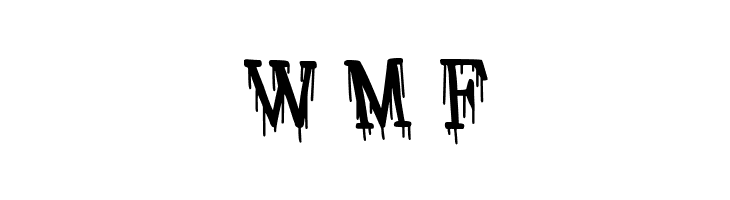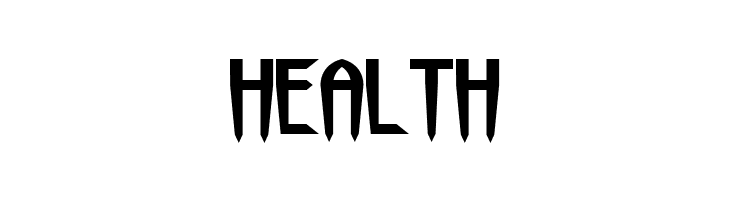
Hand-drawn cat-themed decorative font with playful character integration.
A bold, dripping display font ideal for horror or Halloween themes.
Distressed, bold display font with jagged, horror-inspired forms.
Dripping, horror-themed decorative font with bold, tall letters.
Bold, distressed display font with a grungy, horror-inspired style.
Dripping, horror-inspired decorative display font.
Distressed, brush-style horror display font with jagged edges.
A bold, dripping, horror-themed decorative font.
Distorted, jagged display font with a chaotic, horror-inspired style.
Distressed, horror-themed display font with splatter and drip effects.
A bold, dripping horror-themed display font with a melting effect.
Bold, dripping horror-themed display font.
A bold, dripping display font with a horror aesthetic.
Bold, dripping decorative font with a horror vibe.
Bold, horror-inspired display font with dripping, distressed edges.
Distressed, dripping horror display font with bold, chaotic forms.
A bold, dripping horror-themed decorative font.
A bold, dripping blackletter display font with a horror vibe.
A bold, dripping horror-themed display font.
A bold, dripping blackletter display font with a horror aesthetic.
A bold, dripping display font with a horror-inspired style.
A bold, horror-themed decorative font with dripping, jagged edges.
Distressed, horror-themed display font with jagged, bold characters.
Bold, dripping display font with a graffiti and horror vibe.
A bold, dripping display font with a horror or grunge vibe.
Bold, dripping decorative font ideal for horror themes.
Distressed, bold display font with a vintage horror vibe.
Bold, sketchy display font with a horror and playful theme.
A bold, distressed display font with a dripping, horror-inspired style.
Distressed, horror-themed display font with jagged brush strokes.
Distressed, dripping display font with a horror vibe.
Bold, horror-themed display font with dripping, distressed letterforms.
Bold, horror-themed stencil font with dripping, jagged edges.
Distressed, jagged display font with a horror or chaotic theme.
A bold, dripping horror display font with a melting effect.